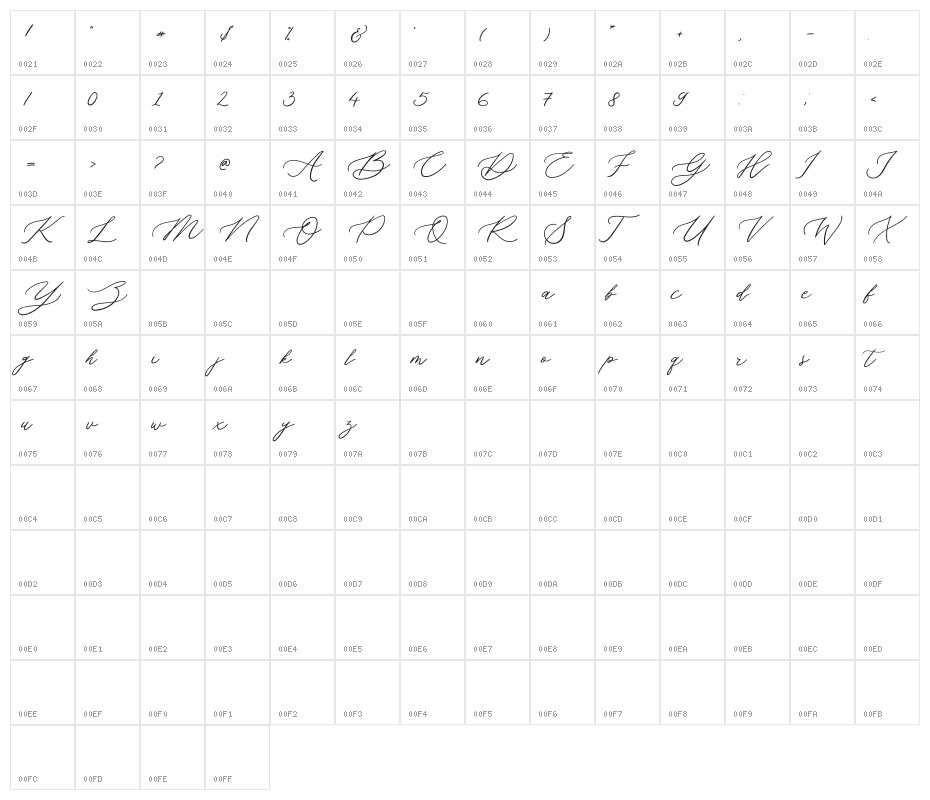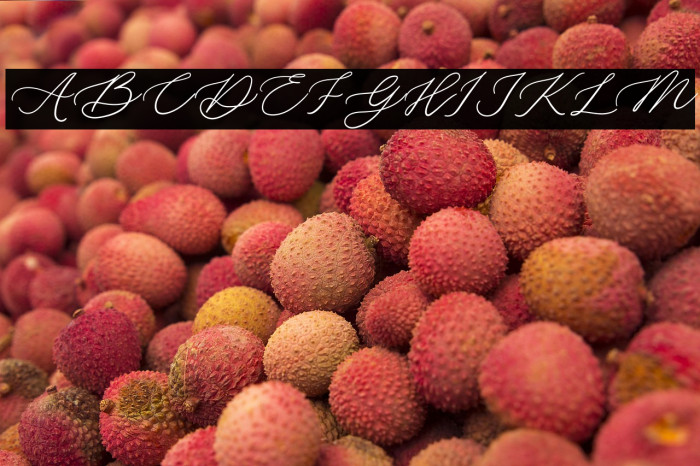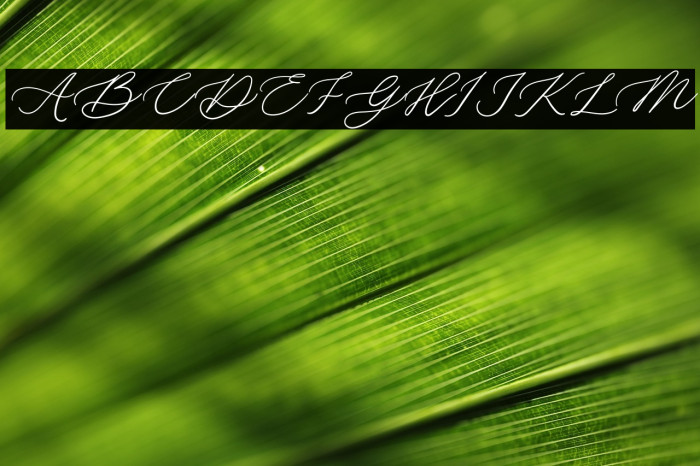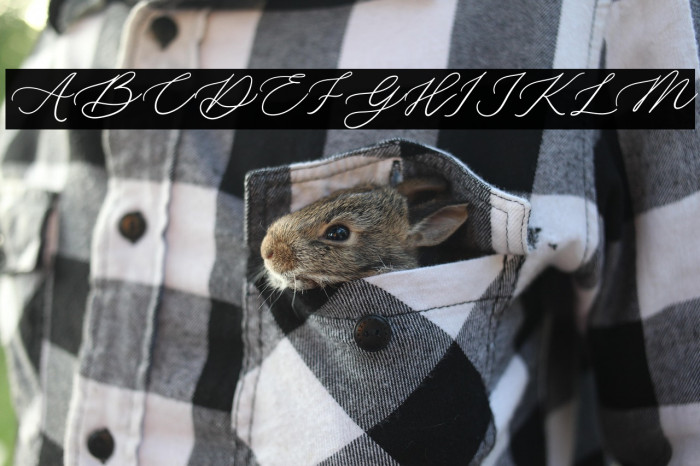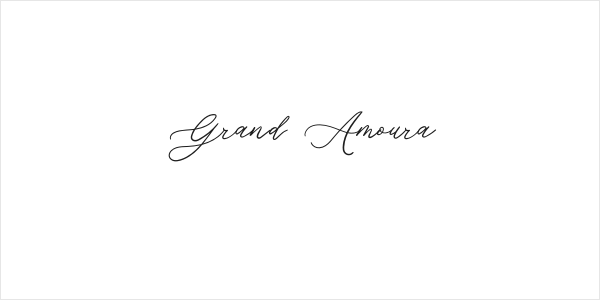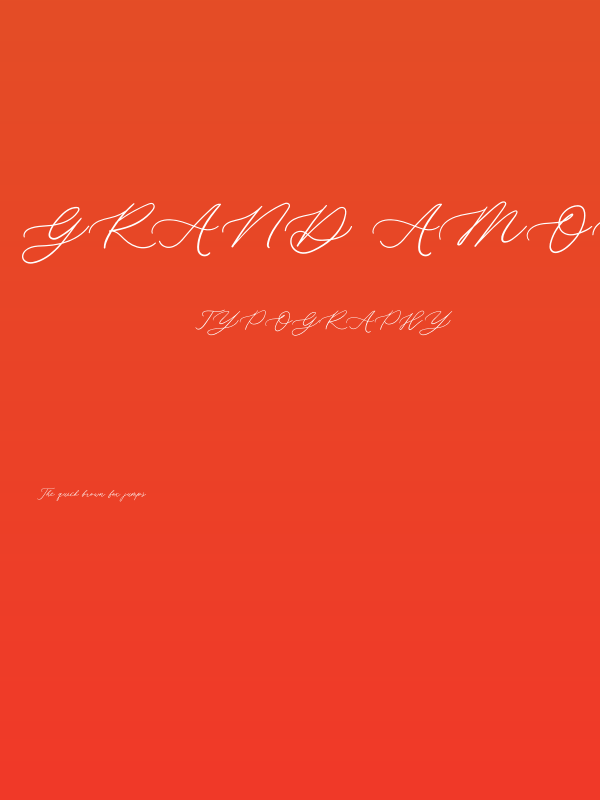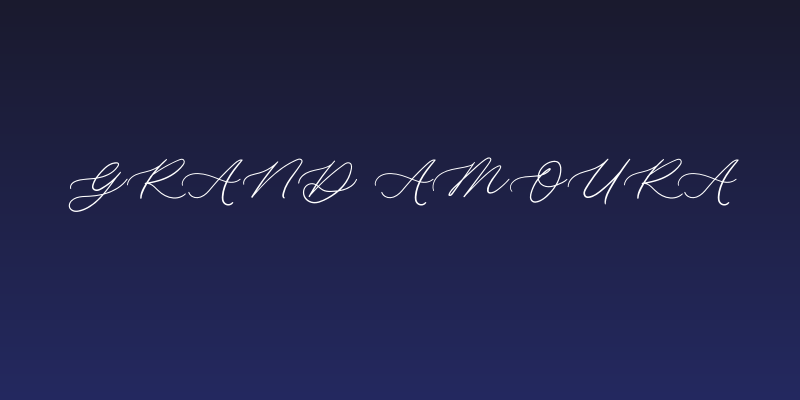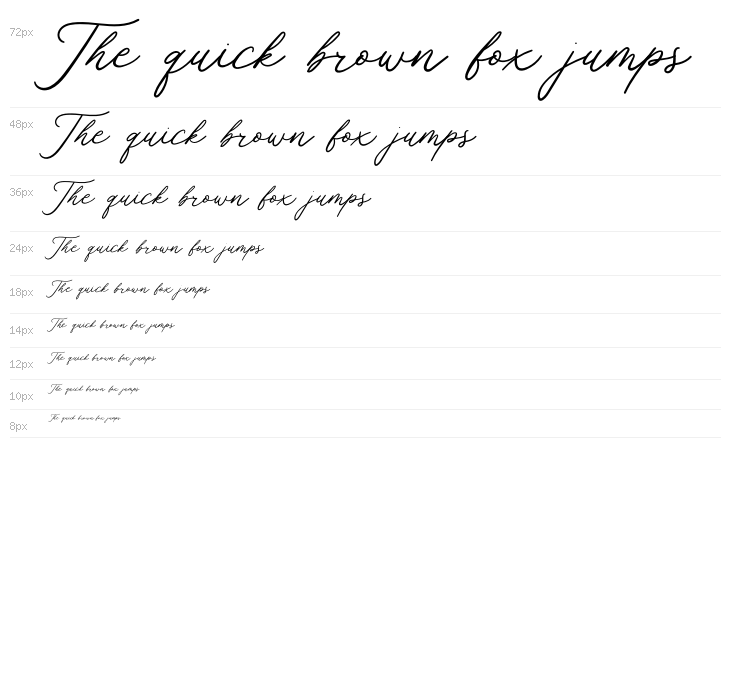
Grand Amoura Font
Grand Amoura Description
This elegant script font features fluid, cursive strokes that convey a sense of sophistication and grace. The uppercase letters are intricately designed with sweeping curves and delicate loops, while the lowercase letters maintain a consistent flow, enhancing readability. The numerals are styled to match the overall cursive theme, adding a touch of elegance to numerical expressions. Special characters are seamlessly integrated, maintaining the font's cohesive aesthetic. This font is ideal for projects that require a touch of class and elegance, such as wedding invitations, formal event programs, and upscale branding materials.
| Use Case | Headlines, Invitations, Branding |
| Proposed Projects | Wedding invitations, formal event programs, upscale branding materials. |